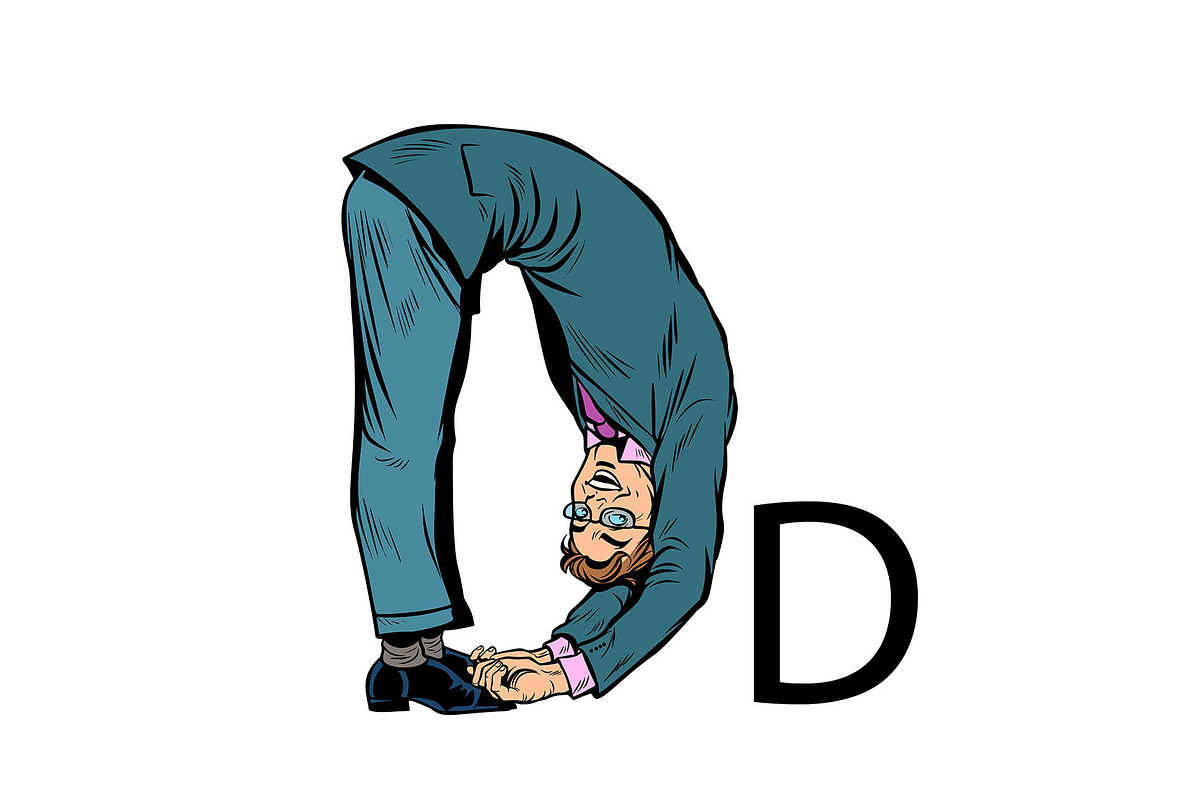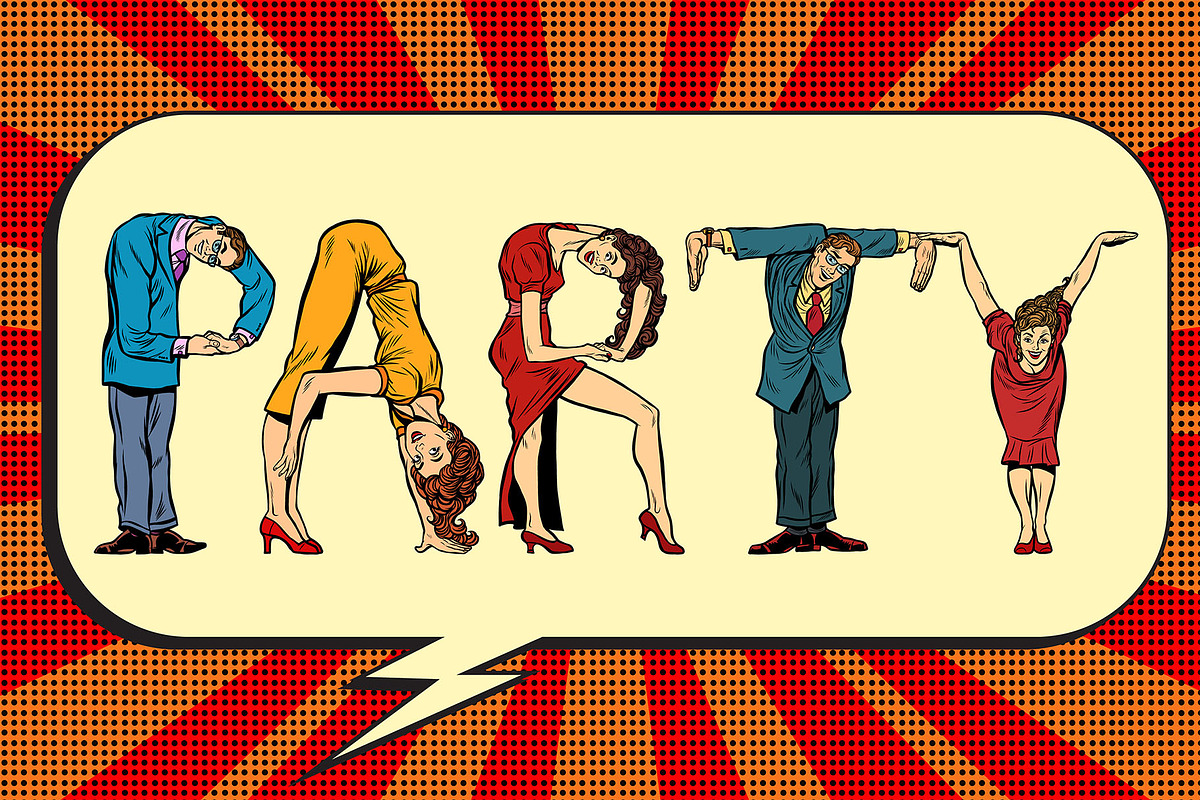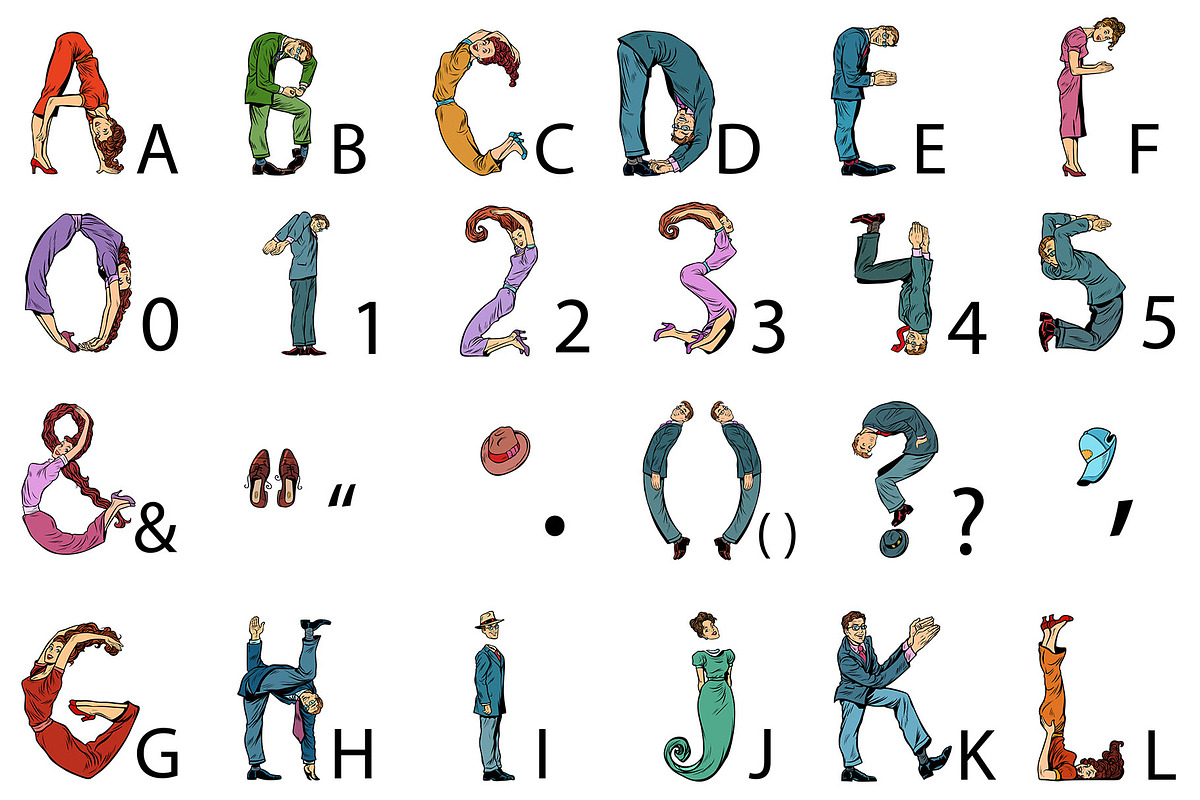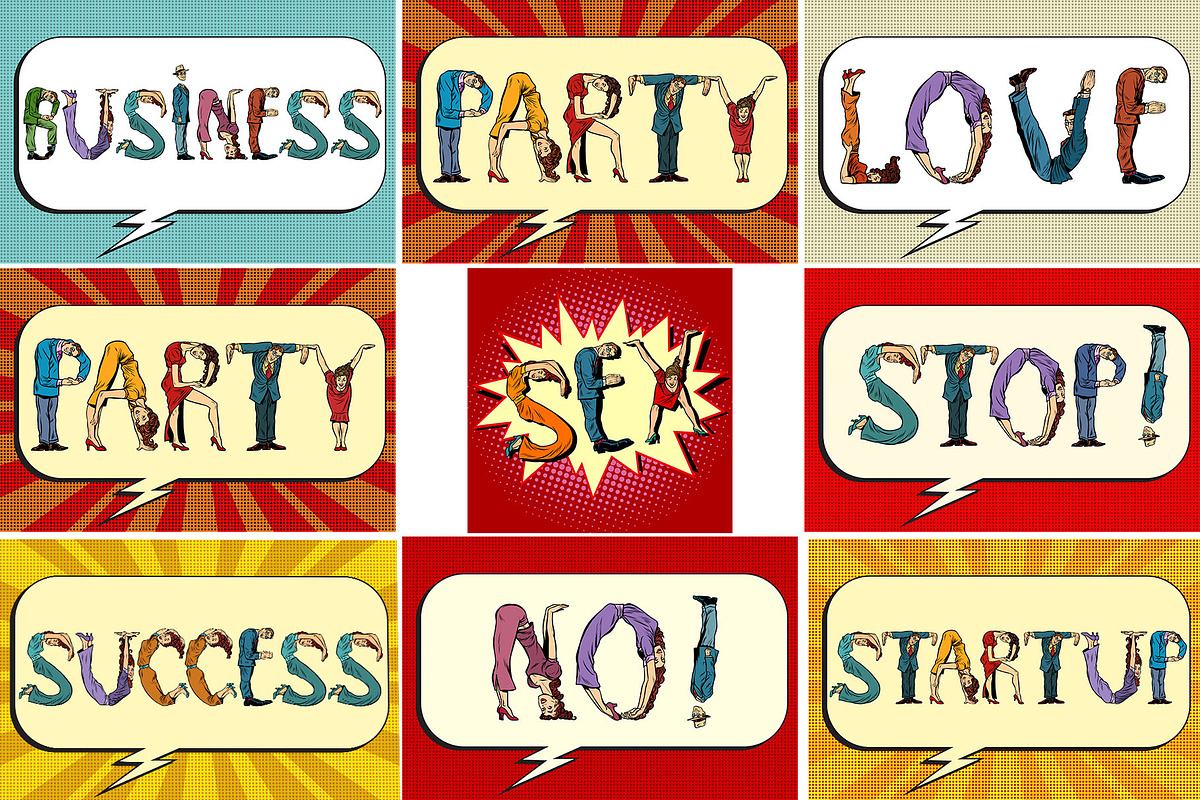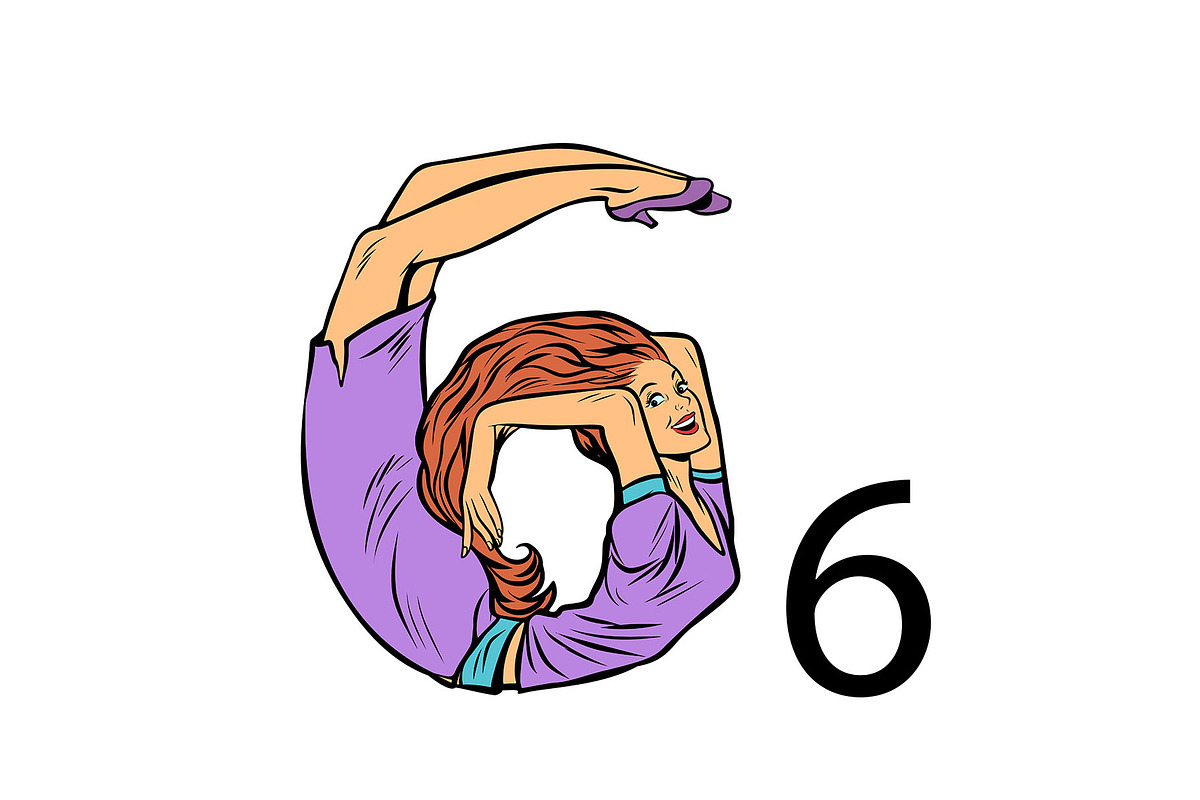
Business font vector pop art
Figures silhouettes symbols of men and women business people. Letters, numbers and punctuation marks. Retro-style.
(the letter I can be used as !)
- Letters, numbers and punctuation marks.